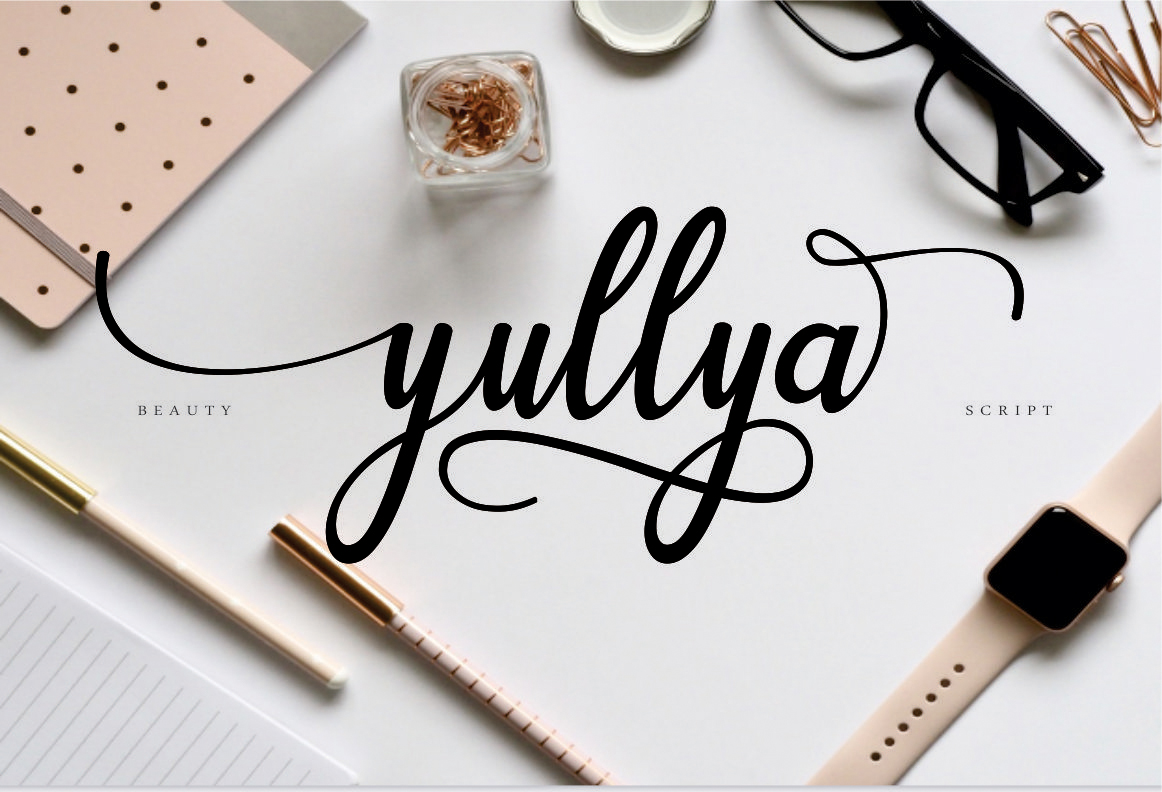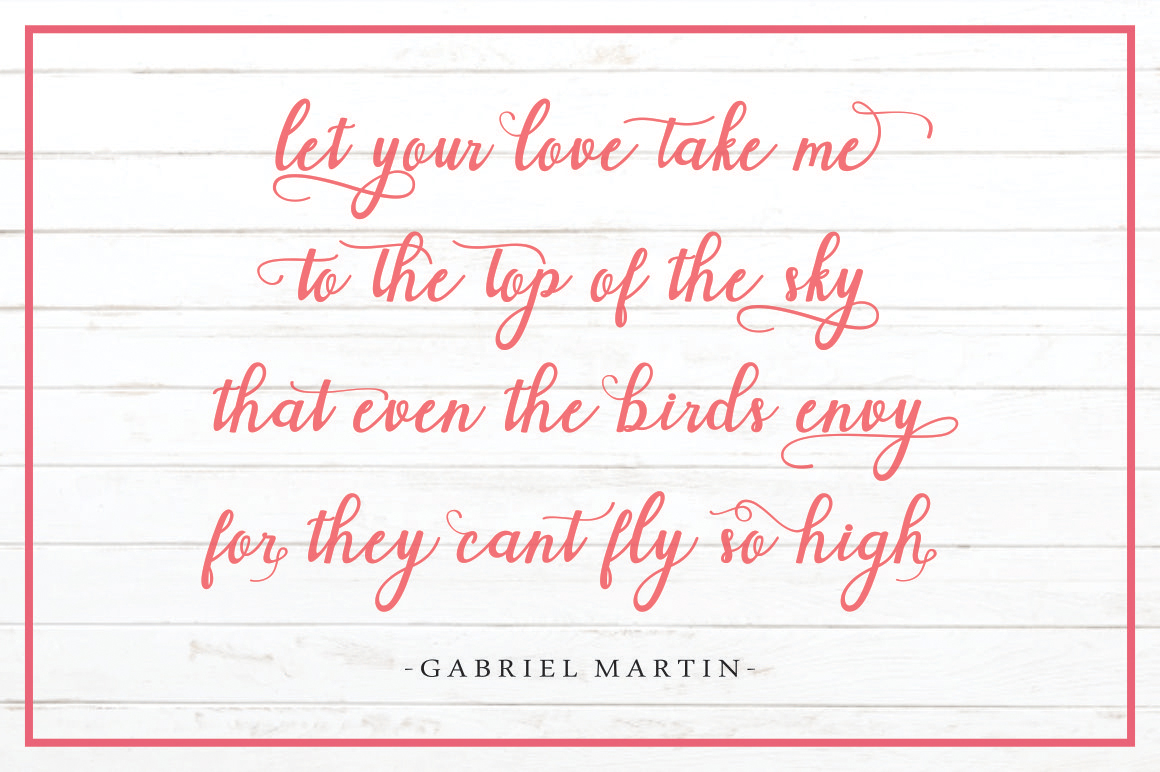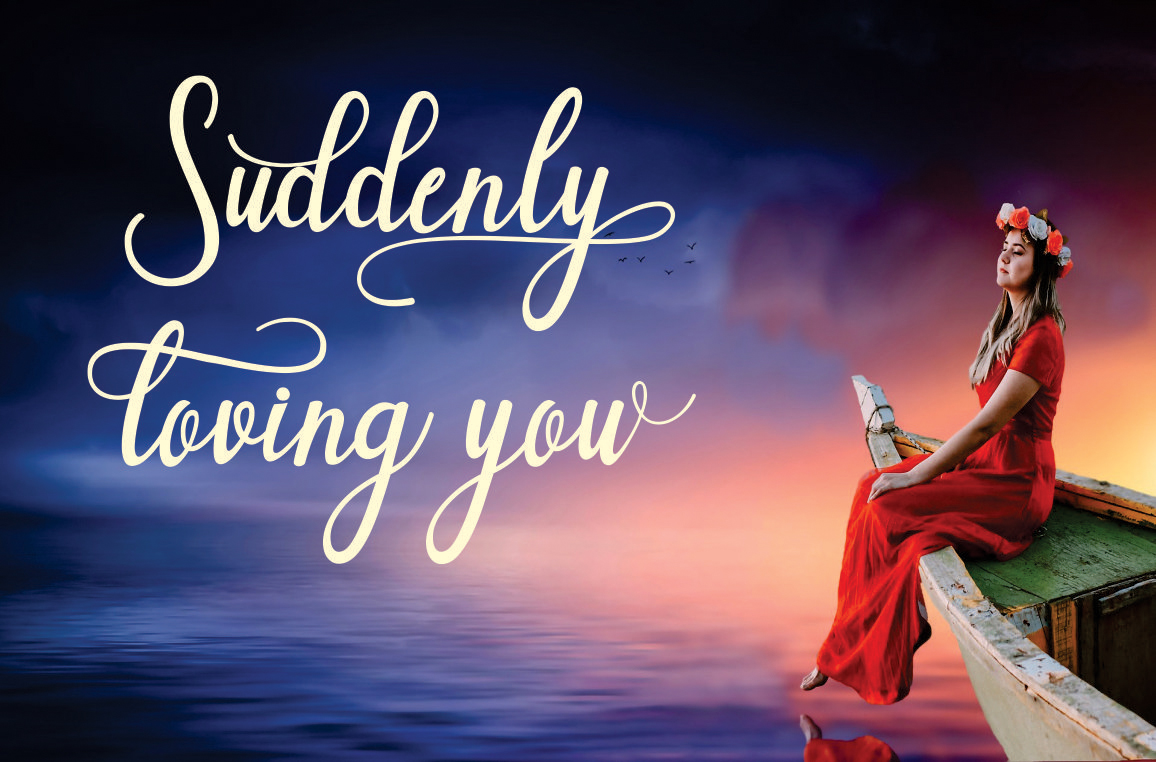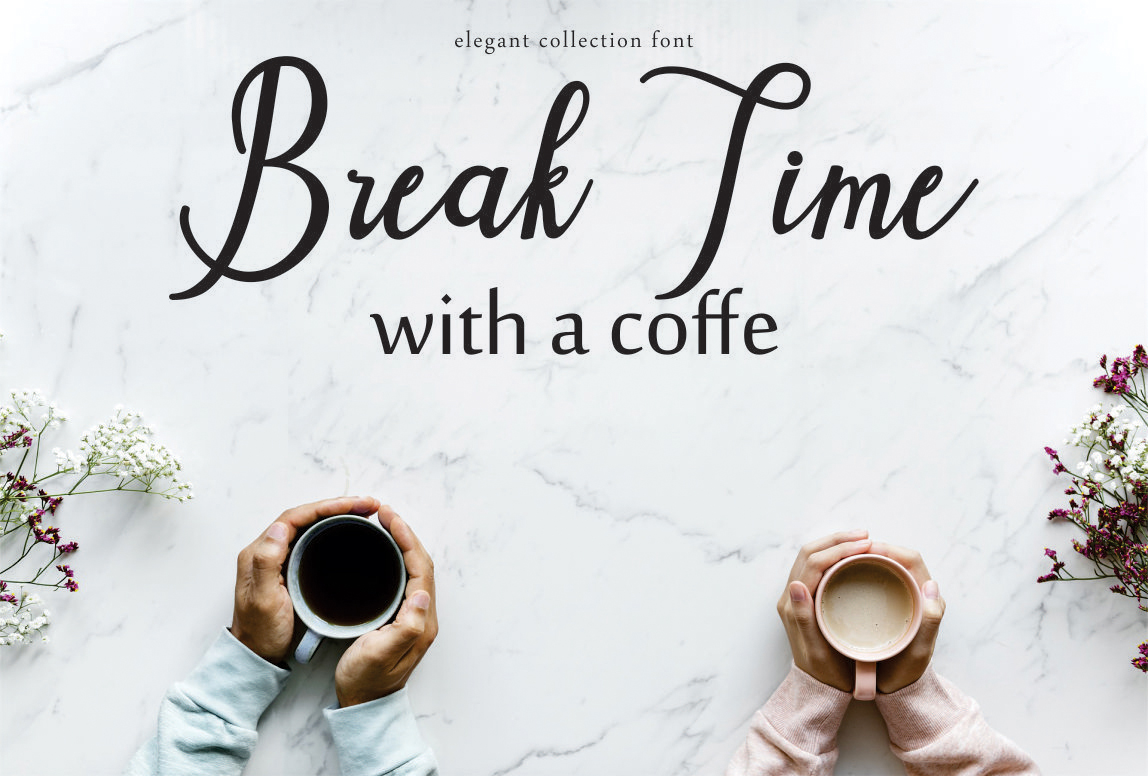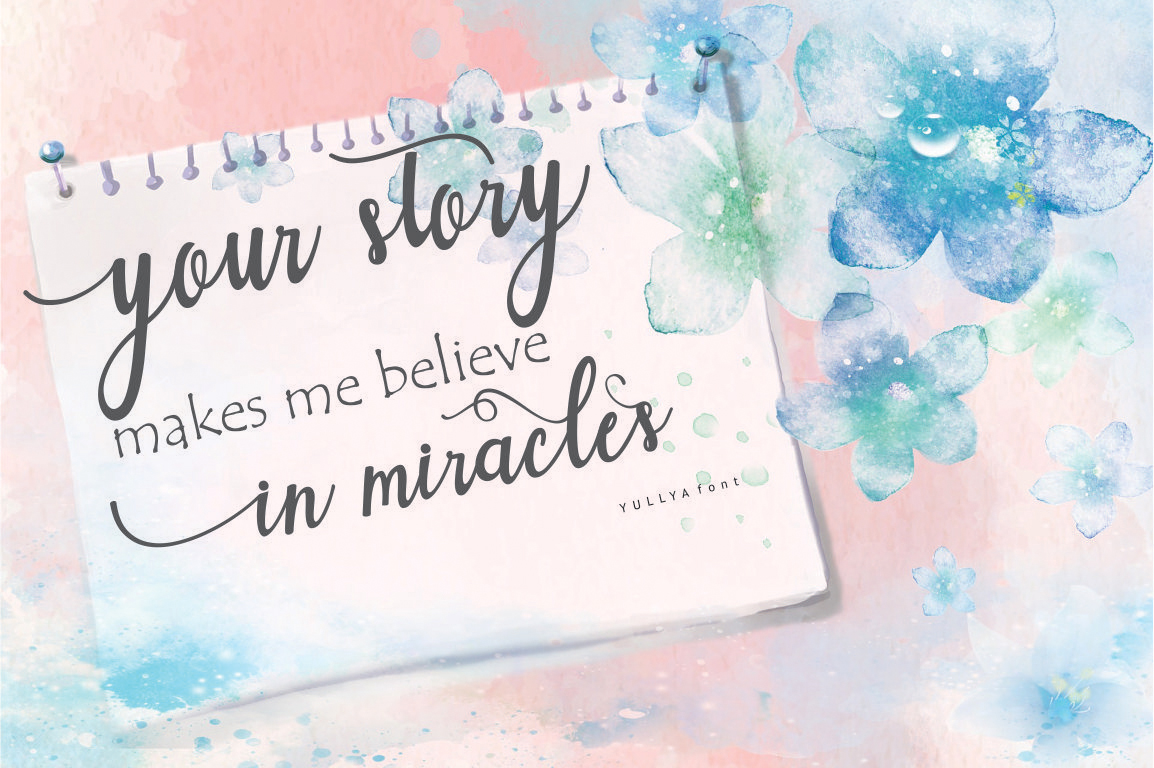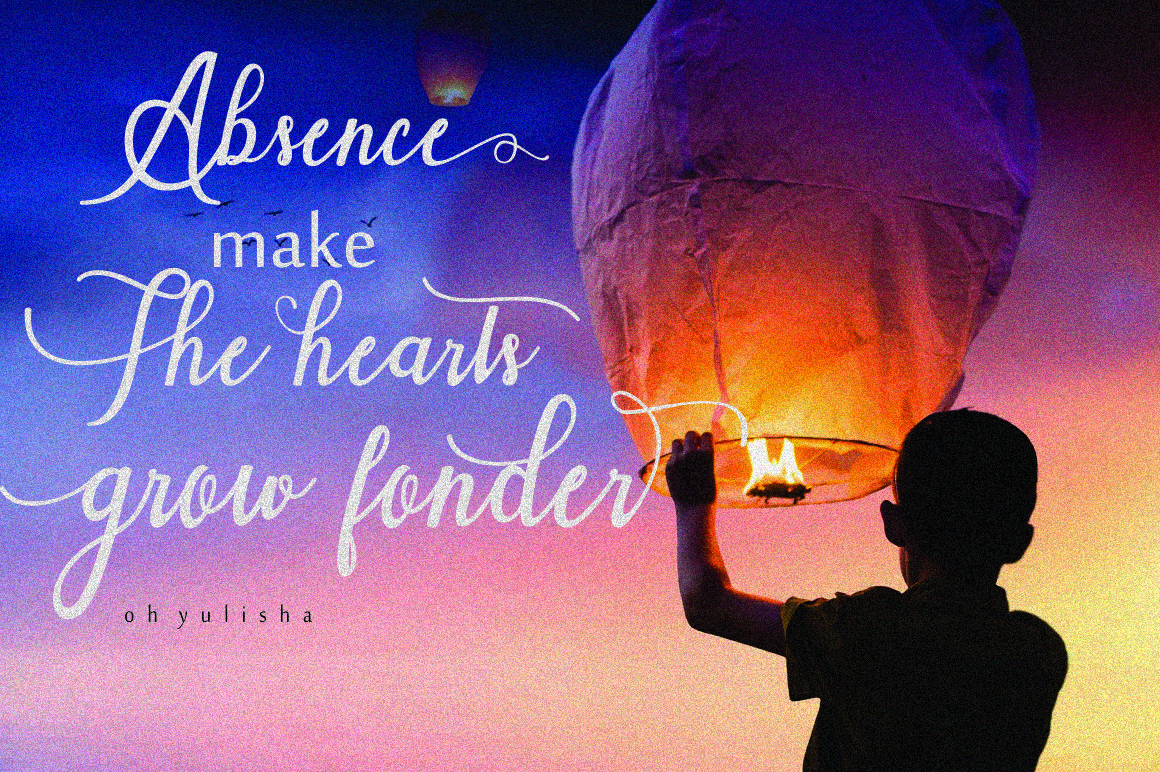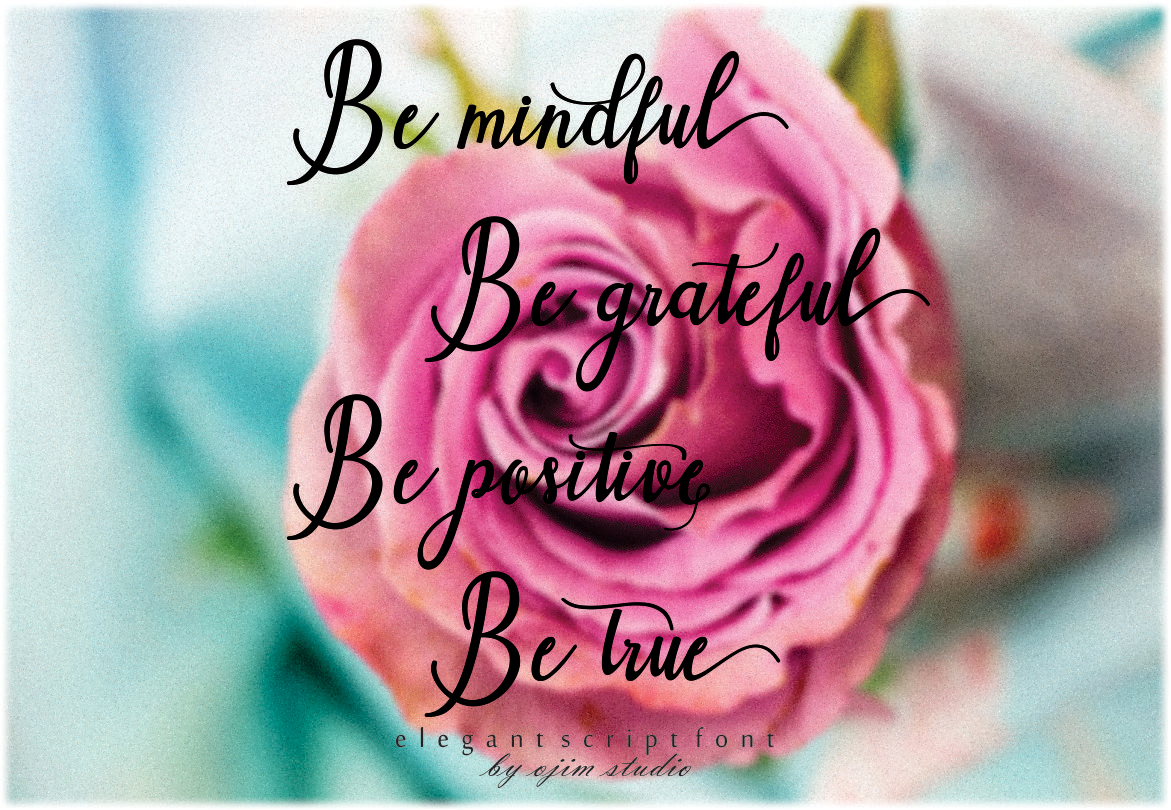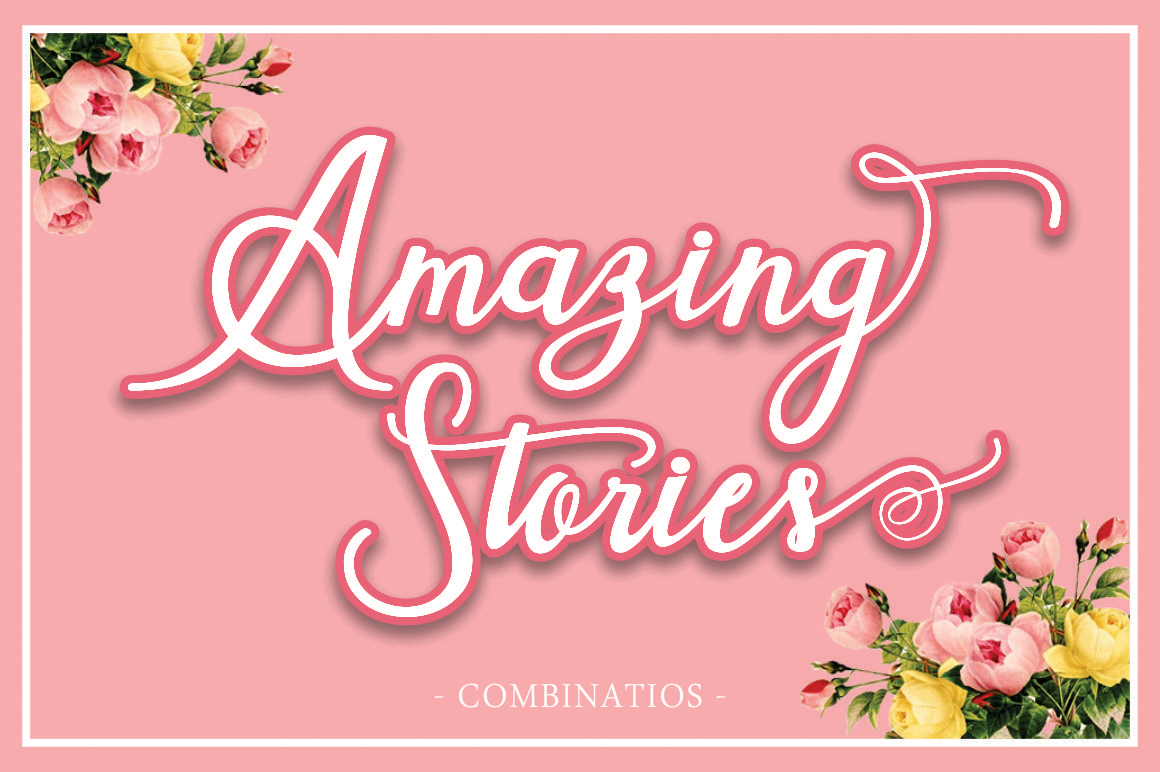
Yullya Script Font
About Yullya Script Font
Yullya Script is a modern script font, every letter has been carefully crafted to make your text look beautiful with an elongated connection model. With a modern script style this font will be perfect for various projects, for example: weddings, invitations, greeting cards, posters, business cards, quotes, blog headers, branding, logos, fashion, clothing, letters, stationery,
Yullya Scripts include beautiful alternative glyphs and swirls.